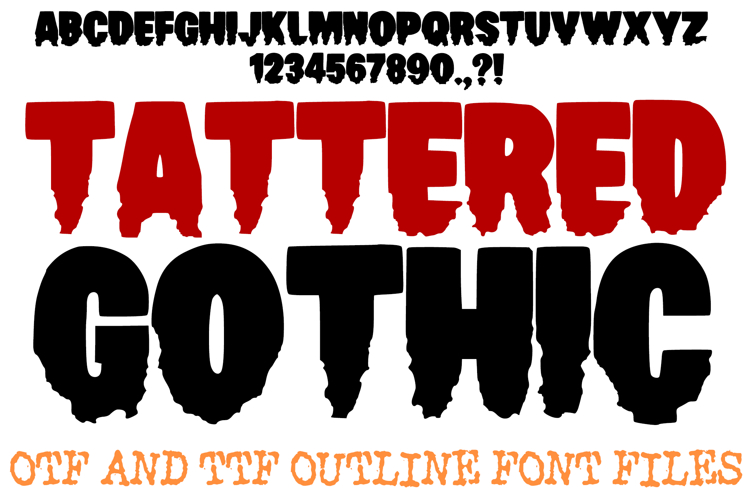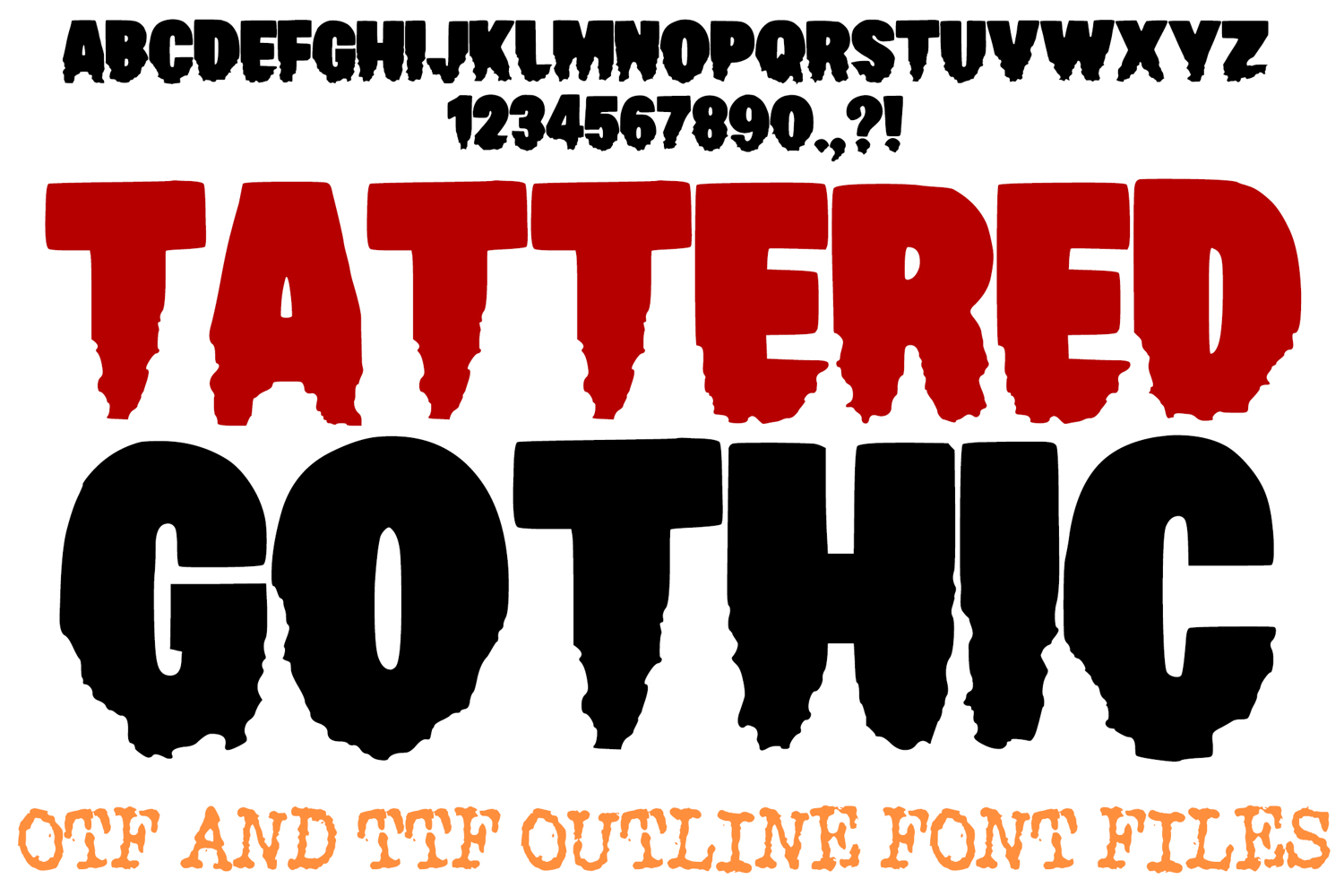
Tattered Gothic Font Halloween Horror Lettering ABC OTF
Unleash a dark, aggressive energy in your designs with the Tattered Gothic Font! This hand-drawn display alphabet features heavy, solid block silhouettes that dissolve into jagged, shredded bottom edges for a high-impact, distressed look. It is the ultimate choice for heavy metal album covers, edgy streetwear branding, horror movie titles, and gritty urban posters.
The "shredded" aesthetic of each character gives the impression of weathered, torn material or rough-cut stone, making it perfect for projects that require a sense of power and decay. Whether you are designing for a punk rock event or a dark fantasy brand, the Tattered Gothic Font delivers a bold, unmistakable presence that demands attention.
Aggressive Jagged Edges: The bottom of every character features unique, rough-cut "tattered" details for a weathered look.
Heavy Block Silhouettes: Thick, sturdy letterforms provide a solid foundation that ensures high visibility even from a distance.
Gritty Texture: The uneven outlines mimic hand-cut or distressed stencil art, adding an authentic, raw feel to your typography.